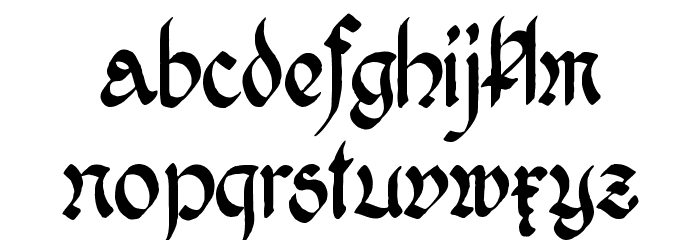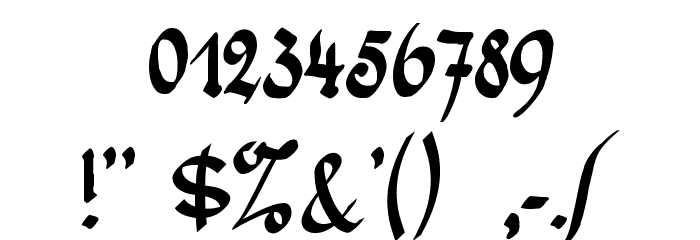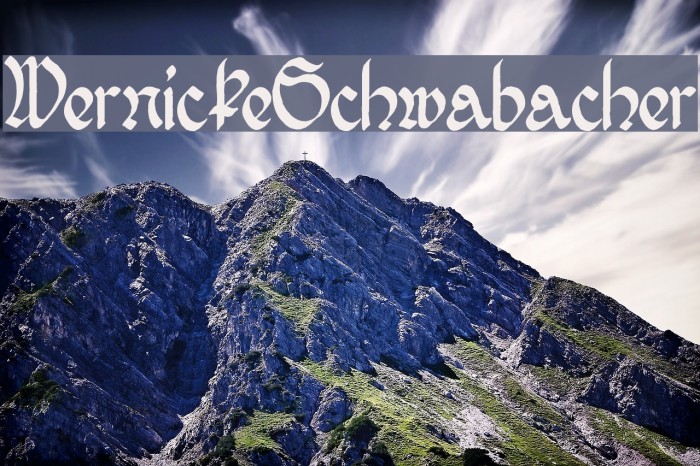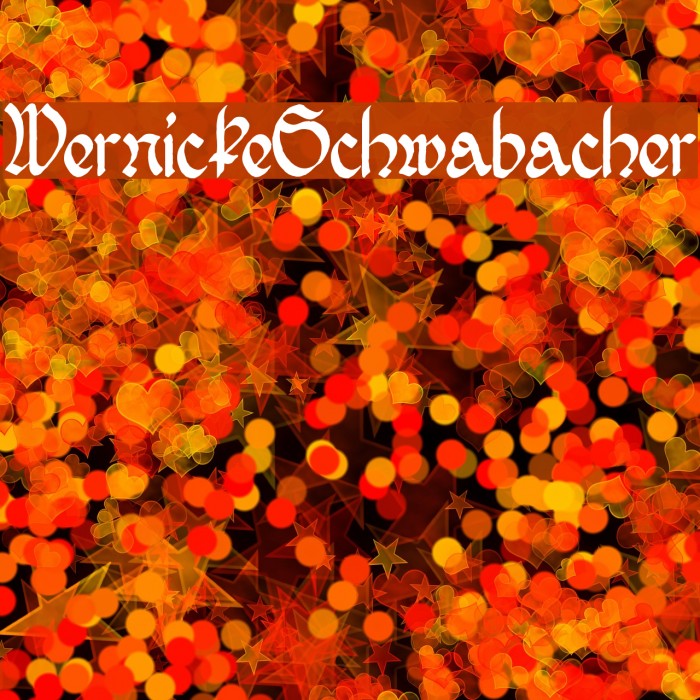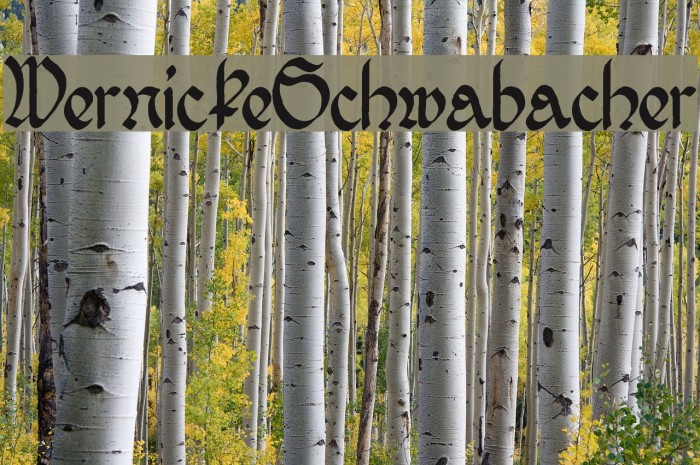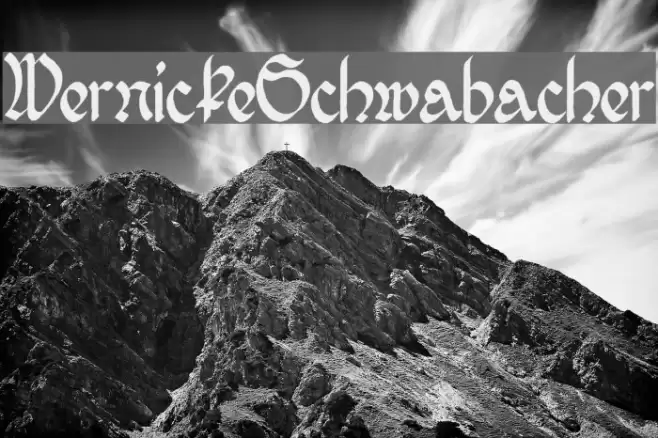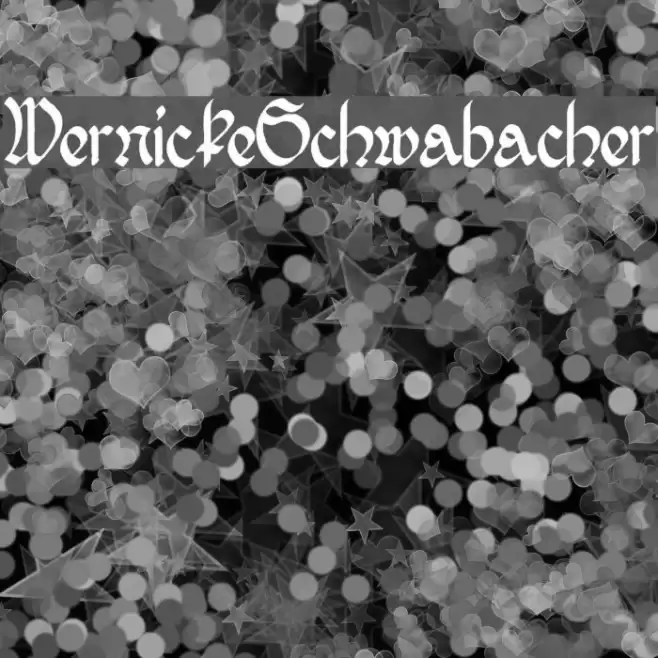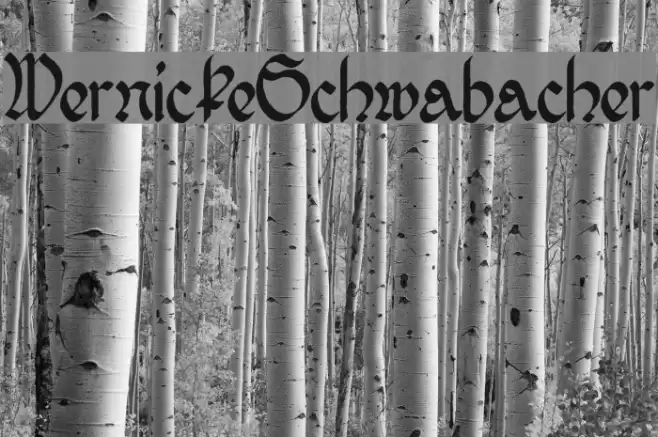
WernickeSchwabacher Font
This font exhibits a classic blackletter style, characterized by its intricate and ornate letterforms. The strokes are bold and angular, with sharp, pointed serifs and a distinct medieval aesthetic. The uppercase letters are particularly elaborate, featuring dramatic flourishes and a strong vertical emphasis. The lowercase letters maintain the same level of detail, with a consistent weight and style throughout. Numbers and special characters are designed to match the overall theme, ensuring a cohesive look. This font is ideal for projects that require a historical or gothic touch, such as invitations, posters, or branding for themed events.
A bold, ornate blackletter font with a medieval aesthetic.
- Proposed Projects: Ideal for historical-themed designs, gothic posters, invitations, and branding for events with a medieval or vintage theme.
- Overall Style: Vintage